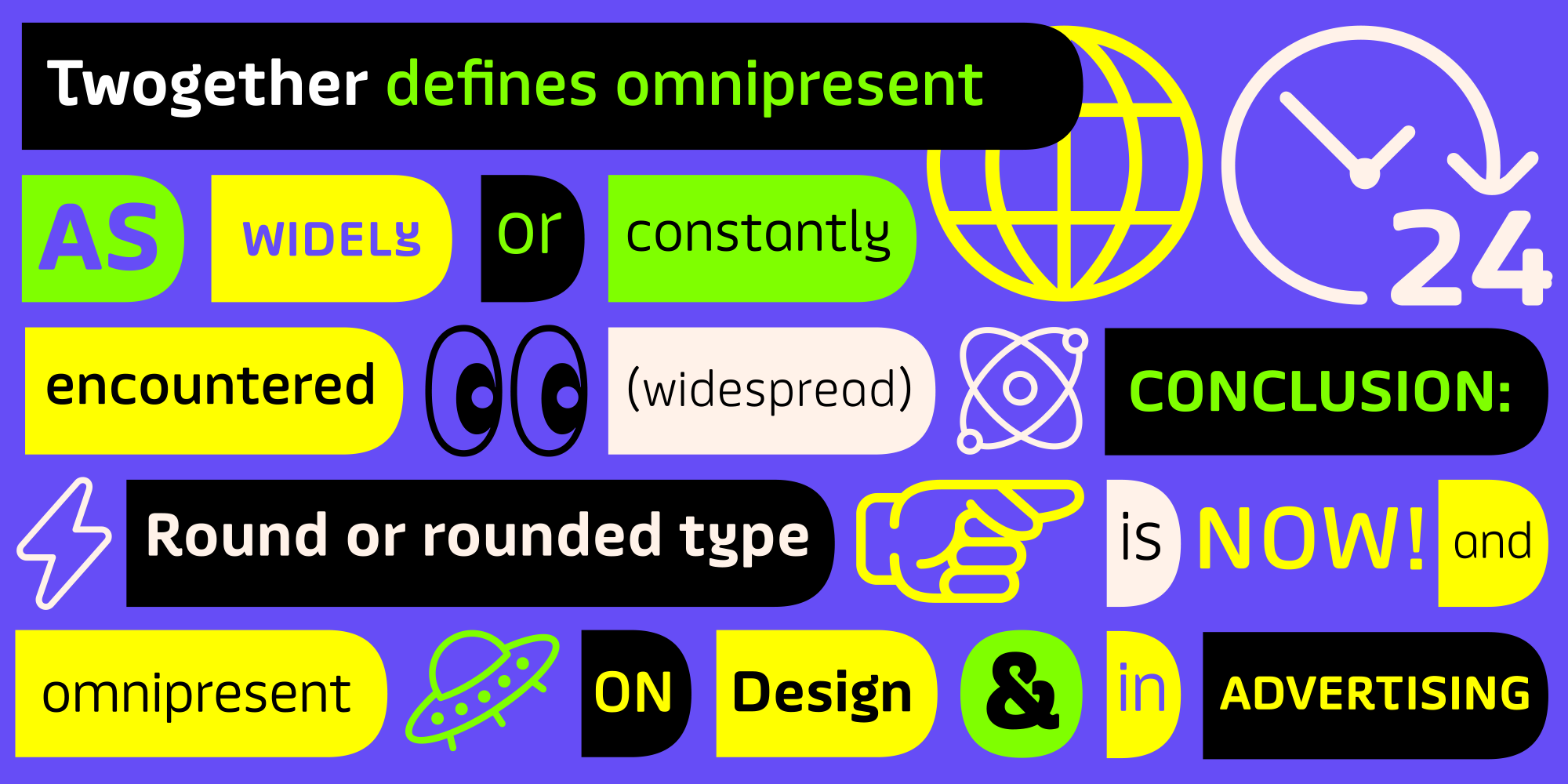
Twogether Rounded Font Free Download – Playful & Friendly Typeface for Heartwarming Designs
Looking for a font that radiates warmth and approachability? Twogether Rounded Font Free Download delivers a charming rounded sans-serif perfect for children's brands, educational materials, friendly logos, and any project needing a touch of softness and joy. Its bubbly letterforms create instant positivity and connection.
Why Choose Twogether Rounded Font?
Twogether Rounded Font Free Download stands out with its delightful features:
Soft, rounded edges for a friendly, non-threatening look
Perfect for youth-oriented or community-focused designs
Excellent readability for children's books and learning materials
Includes multilingual support for inclusive projects
Twogether Rounded Font Free Download – Spread the Warmth
Create heartwarming designs with this cheerful typeface for:
Kids' products & toy packaging
School materials & educational apps
Community events & family-friendly branding
Cafe menus & local business identities
Designer Tip: Combine with pastel colors and organic shapes for extra charm!
(Typography Tip: Use with slightly increased letter spacing for optimal child-friendly readability!)